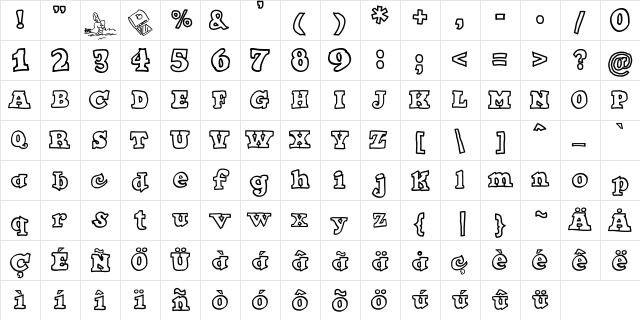
Ode 2 Paste Up Regular
Complete Ode 2 Paste Up Regular glyph index. Displaying only characters natively supported by Ode 2 Paste Up Regular font.
Design Context for Ode 2 Paste Up
Ode 2 Paste Up is a composed and adaptable typeface that performs quietly and consistently across a wide range of design contexts.